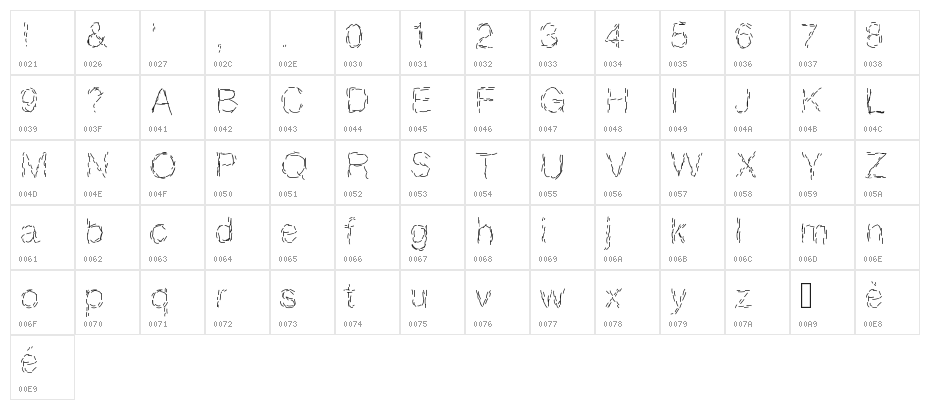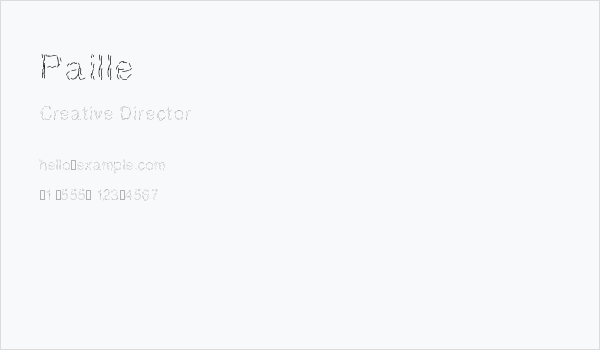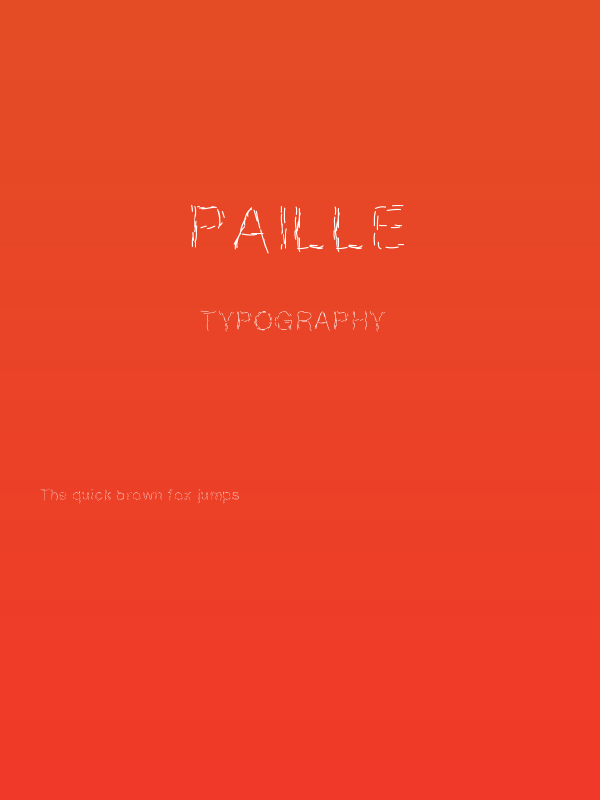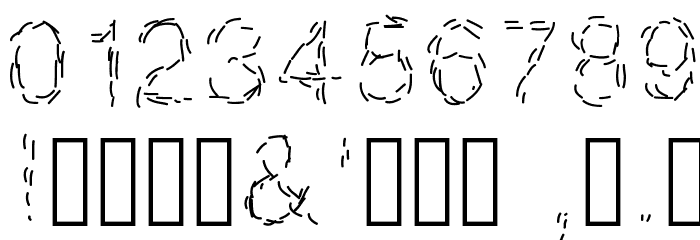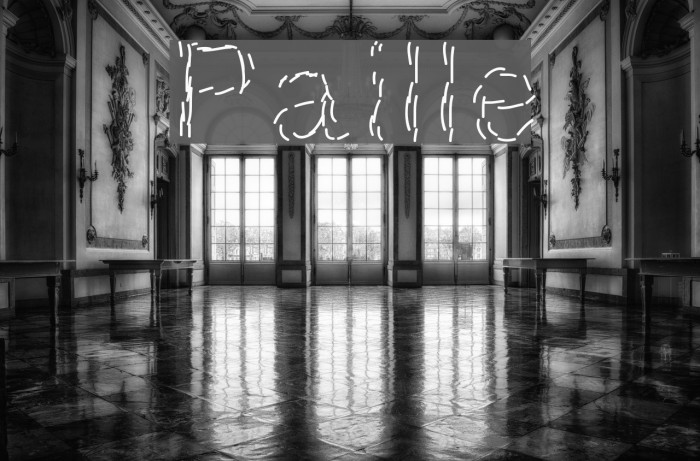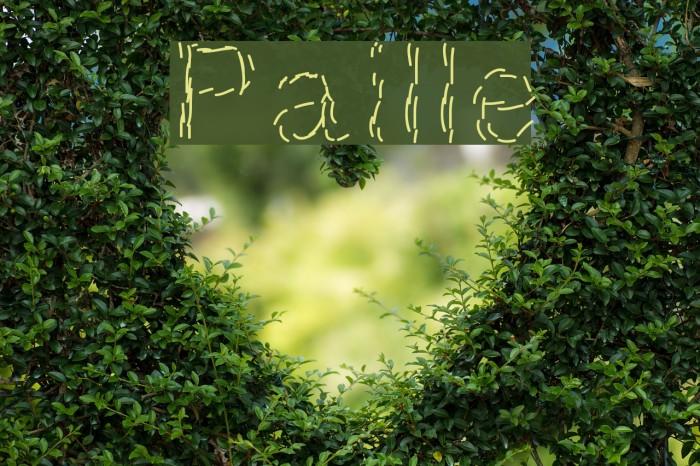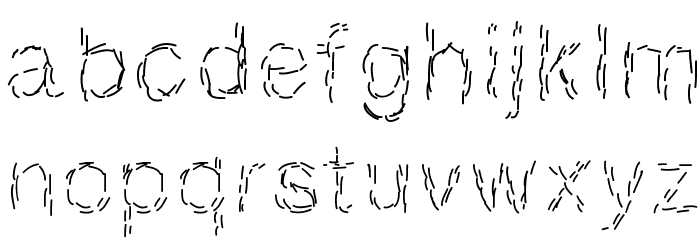
Paille Font
Paille Description
This font features a unique, hand-drawn style with a sketch-like appearance. The characters are composed of irregular, dashed lines that give it a playful and artistic feel. The uppercase and lowercase letters maintain a consistent style, with a slightly rough texture that adds to its charm. The numerals and special characters follow the same design, ensuring a cohesive look across all glyphs. This font's distinctiveness makes it stand out, offering a creative touch to any project.
| Overall Style | Artistic, Playful |
| Proposed Projects | Ideal for creative projects such as children's books, artistic posters, and playful branding materials. |